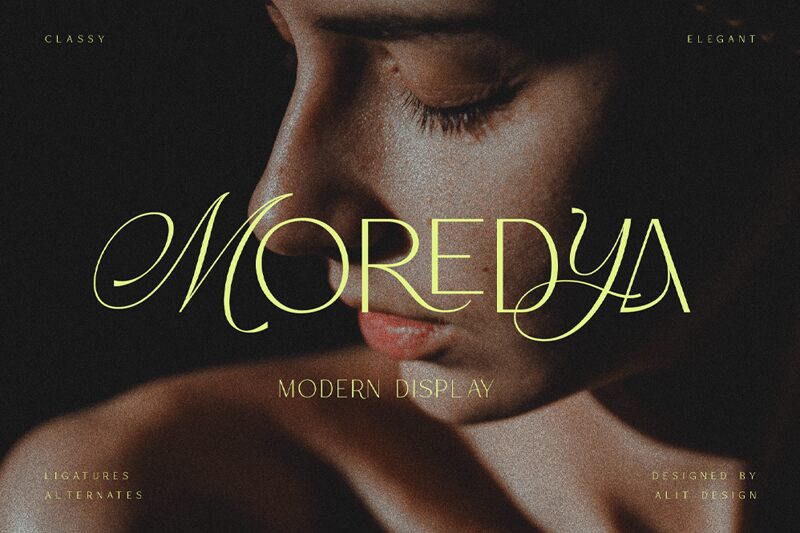
Moredya, a captivating serif font designed by Alit Design, exudes elegance and sophistication.
Its light weight lends a delicate touch to any project, making it perfect for wedding invitations, high-end fashion magazines, and refined branding materials. Infuse your designs with an air of grace and class as Moredya effortlessly enhances the beauty of your typography. Whether you're creating luxurious event posters or exquisite restaurant menus, this enchanting serif font will elevate your projects to new heights of visual appeal.
Moredya